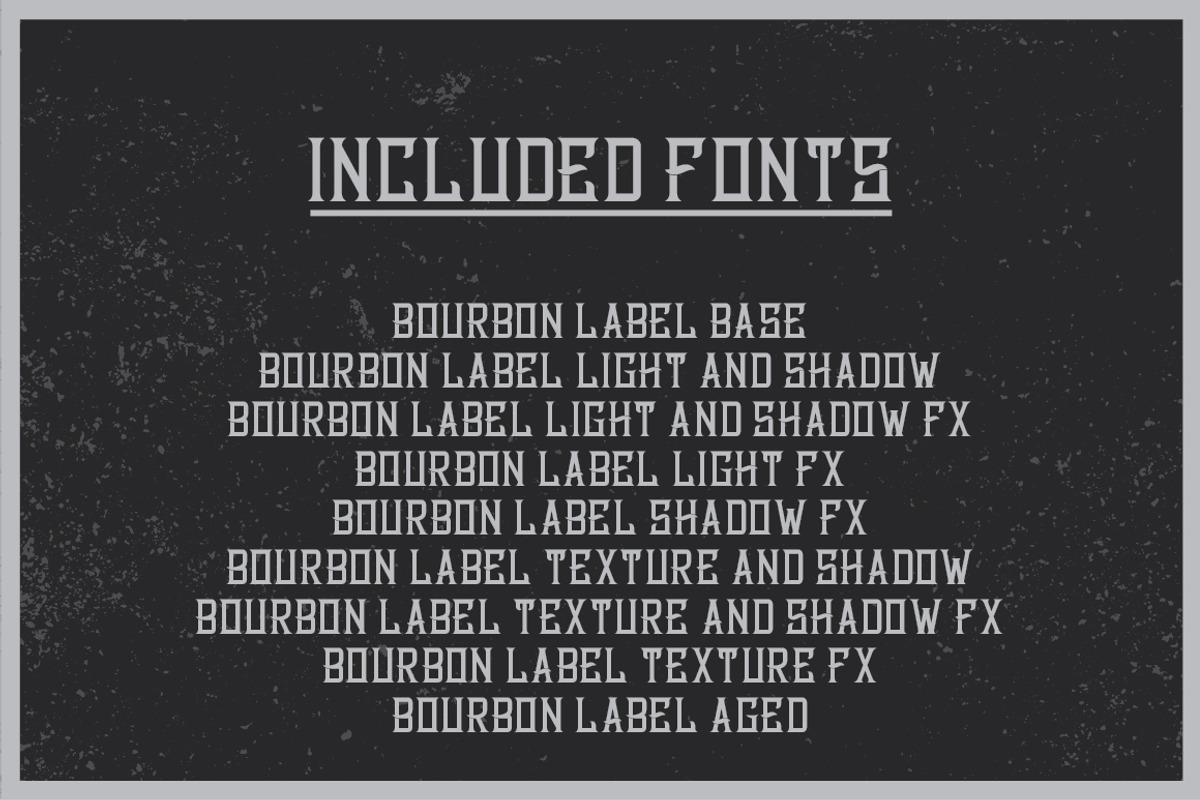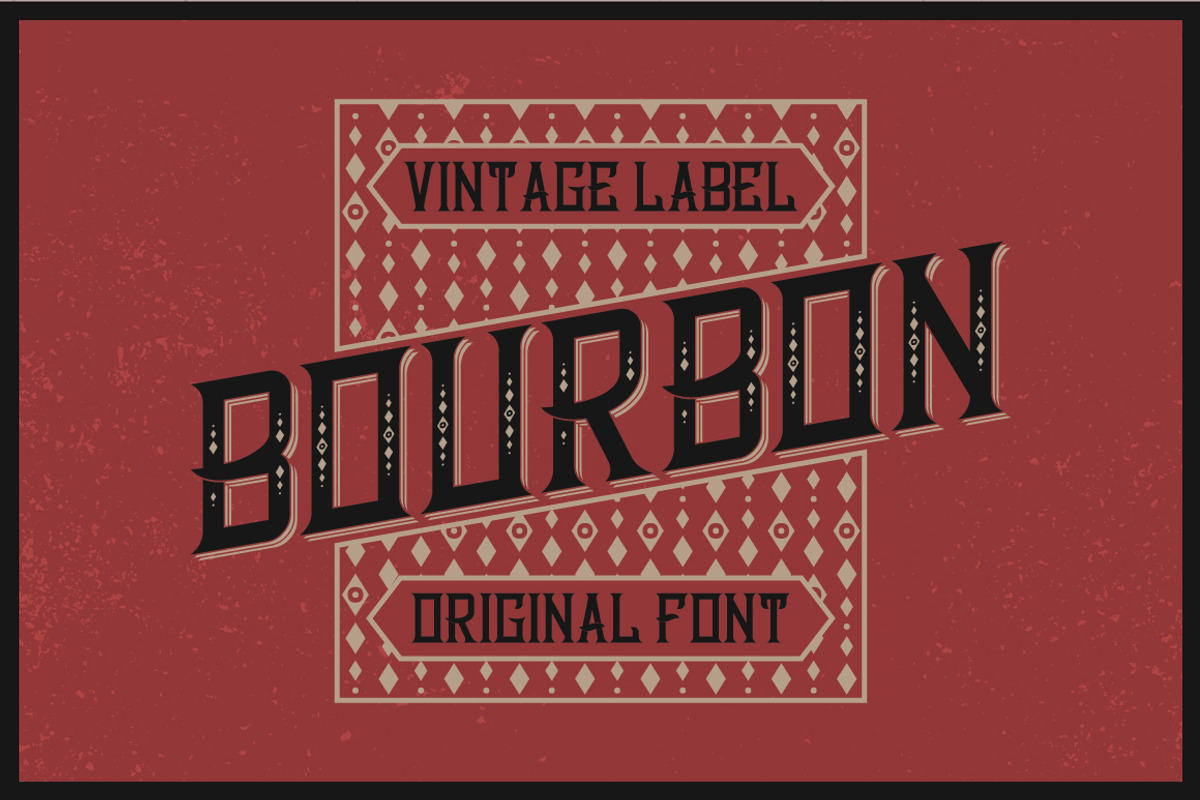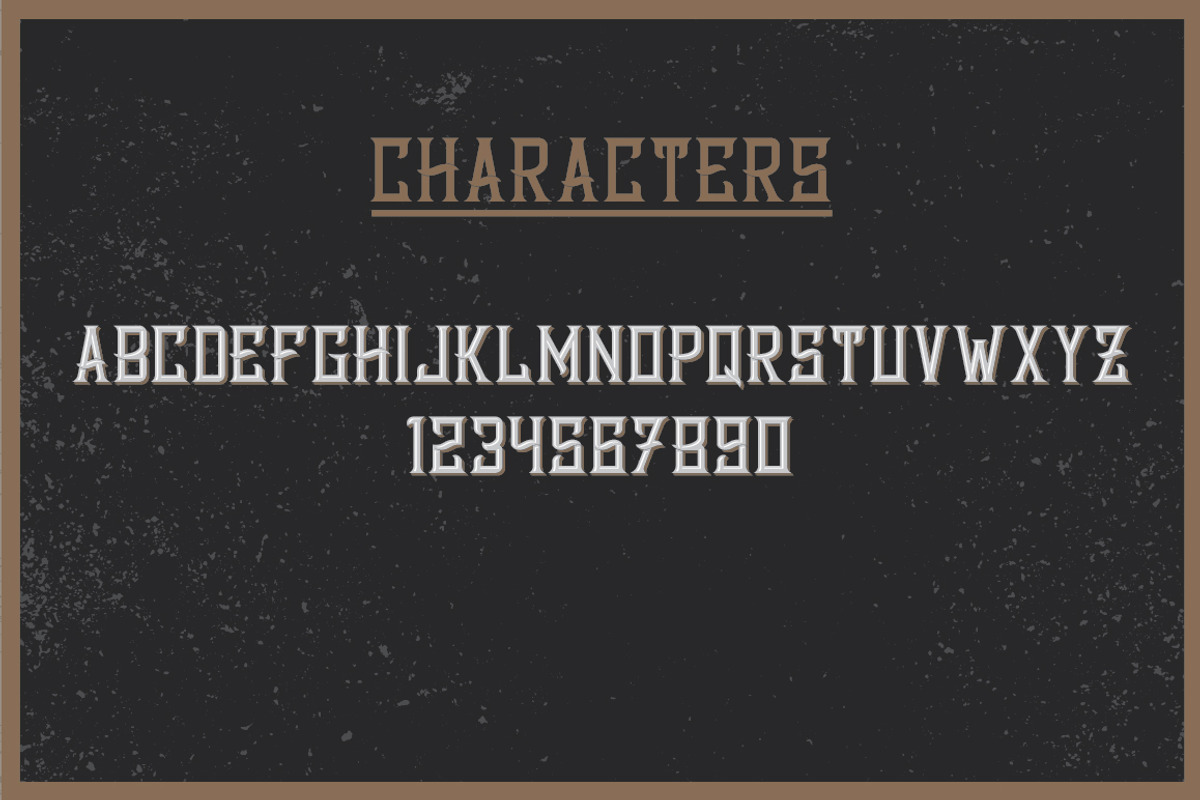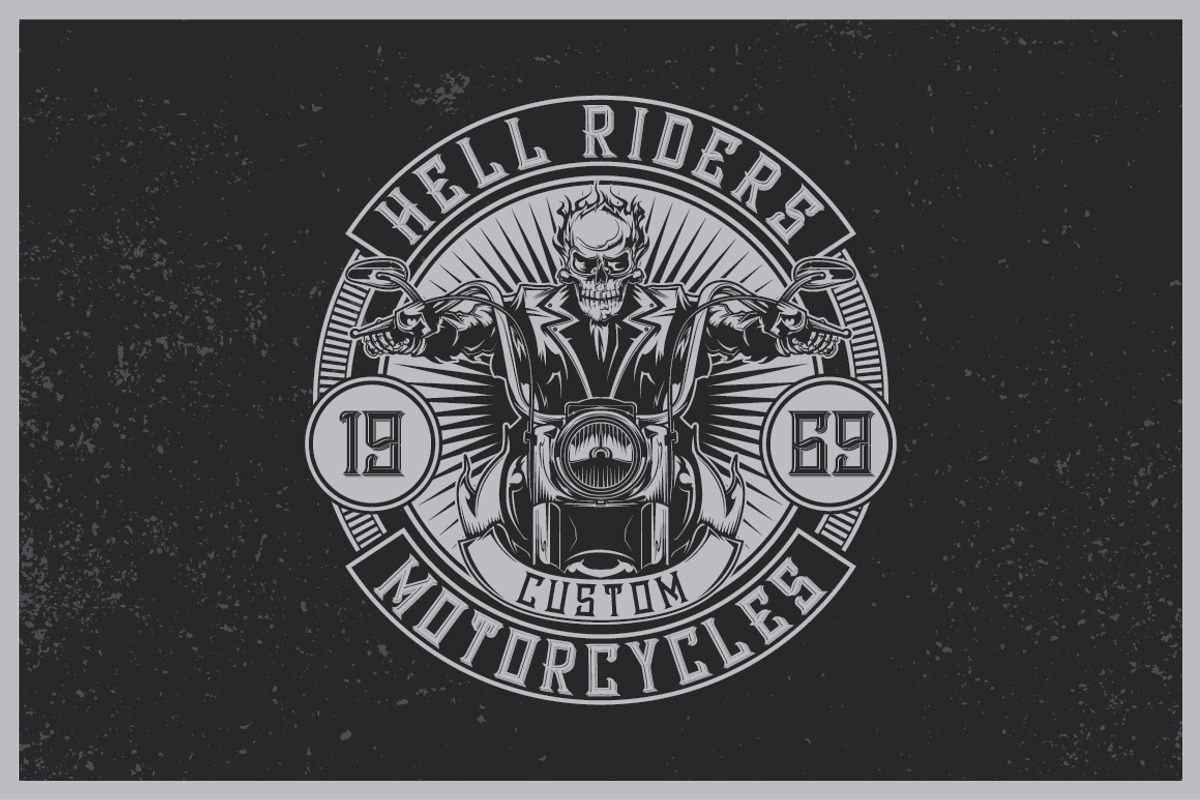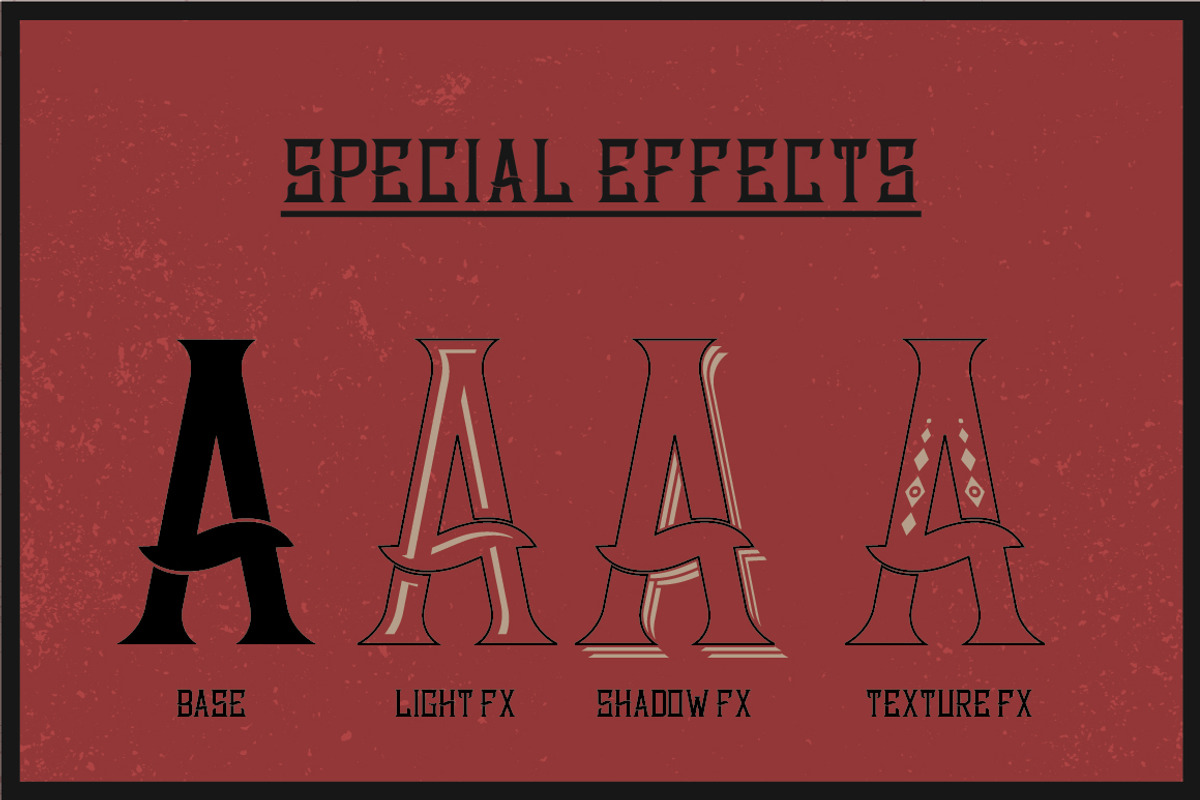
Bourbon Label typeface
Bourbon Label typeface by VozzyStock is a font selected for branding, posters, packaging, typography.
- 8 fonts in complect with special effects, plus aged version
- You can mix light, texture and shadow effects (see 4-th screenshot)
Why Bourbon Label typeface is worth a look
Bourbon Label typeface by VozzyStock fits naturally into Branding, posters, packaging, typography.